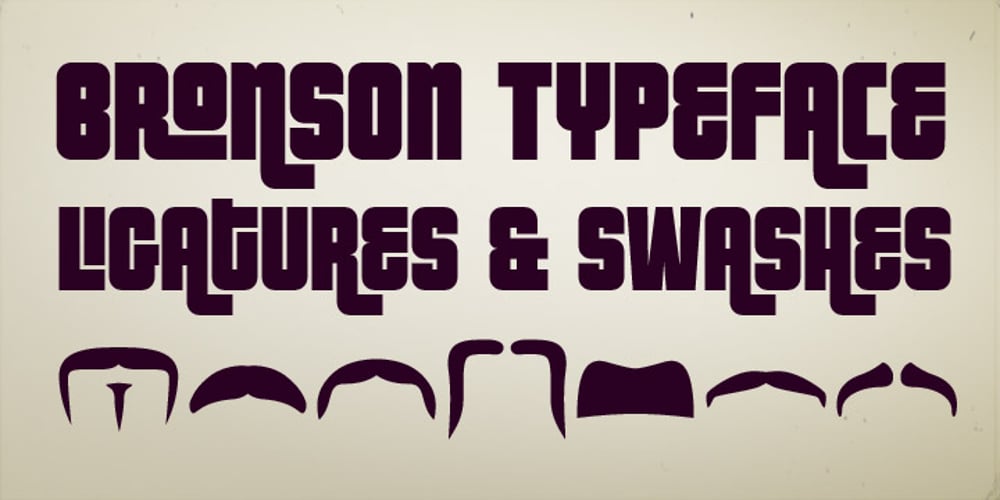
FT Bronson Font Family was designed by Emil Karl Bertell and published by Fenotype. FT Bronson contains 1 styles and family package options. The Bronson typeface comes with dozens of automatic ligatures, swashes and uni-case “small caps”. As a sidekick Bronson has a collection of mustache -dingbats.